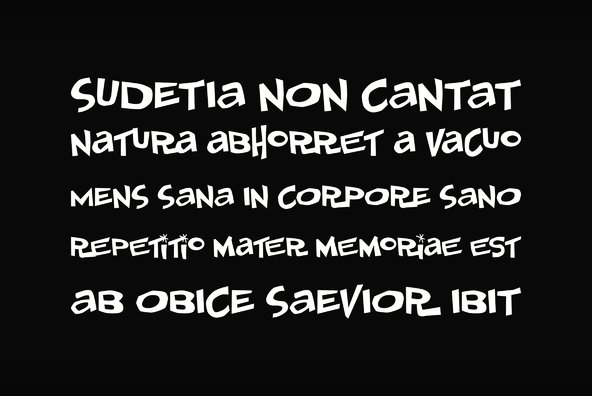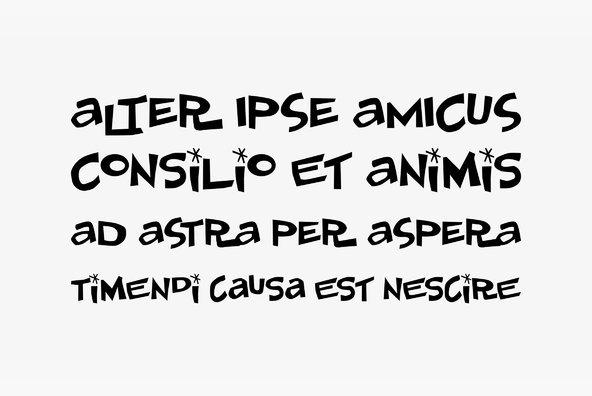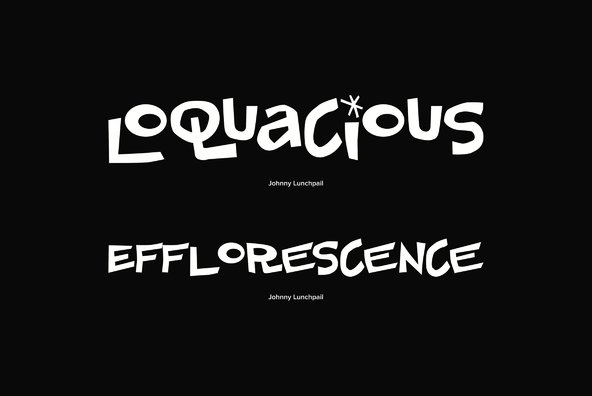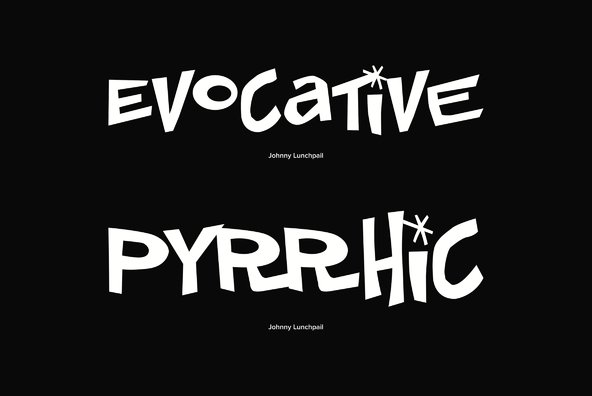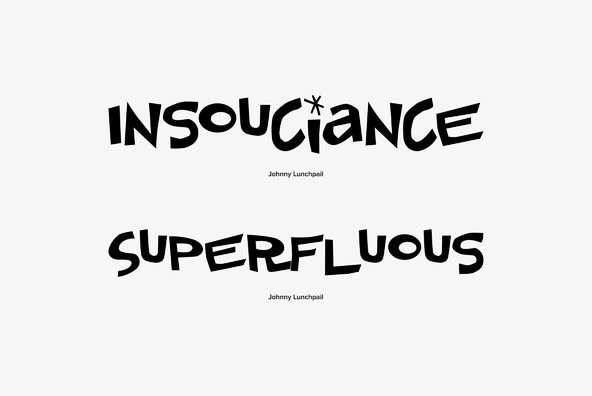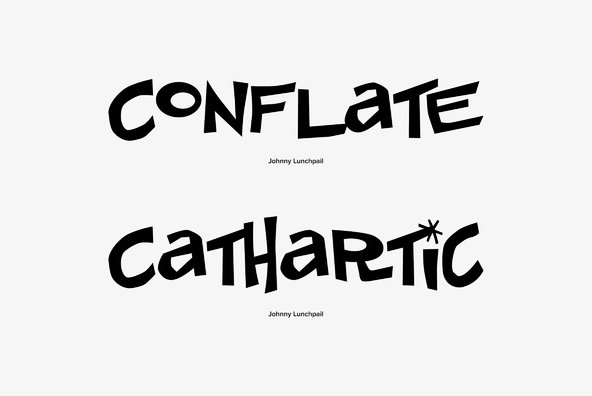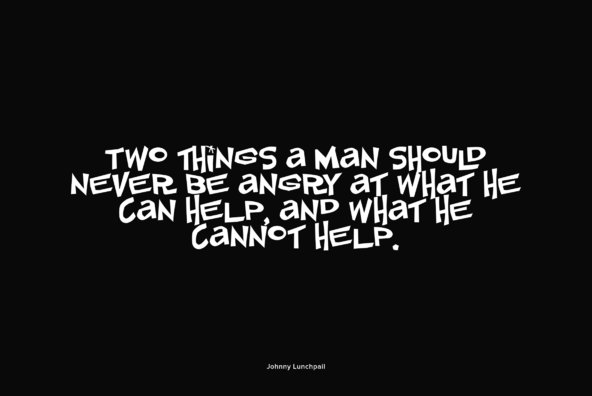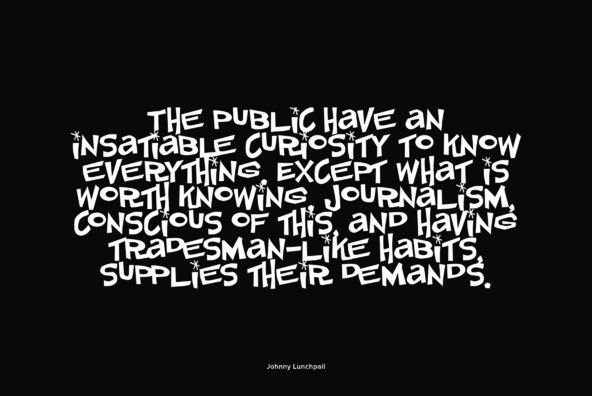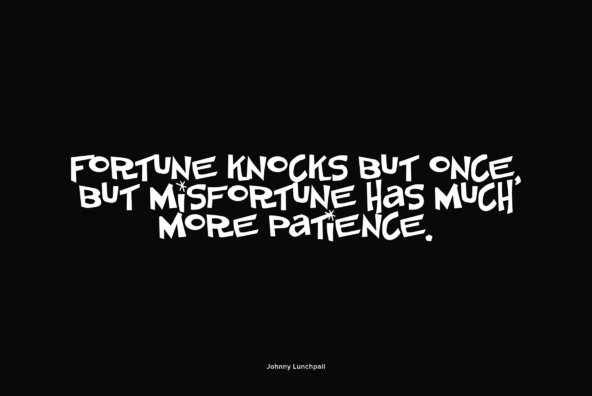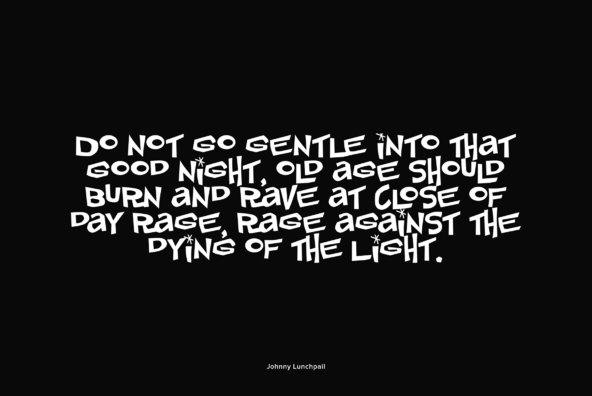
Johnny Lunchpail
Foundry: Font Diner
When the work day is done, it's time for Johnny Lunchpail to let it all hang out! This fun and wacky mod 1960s style font is perfect for any Kustom design job!